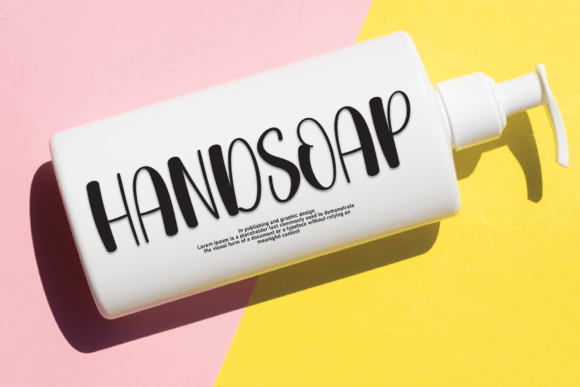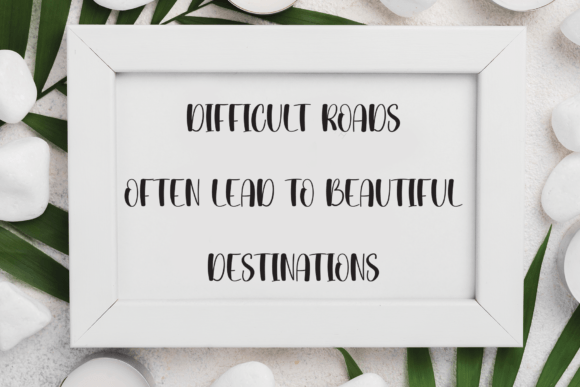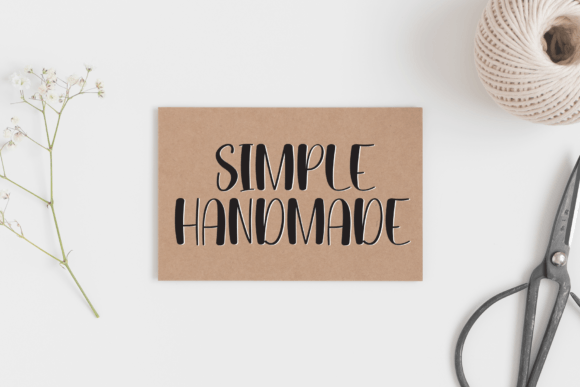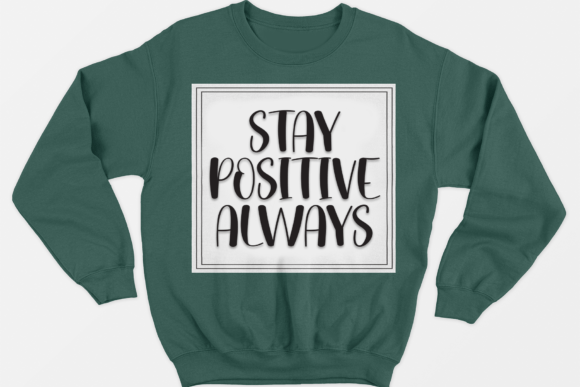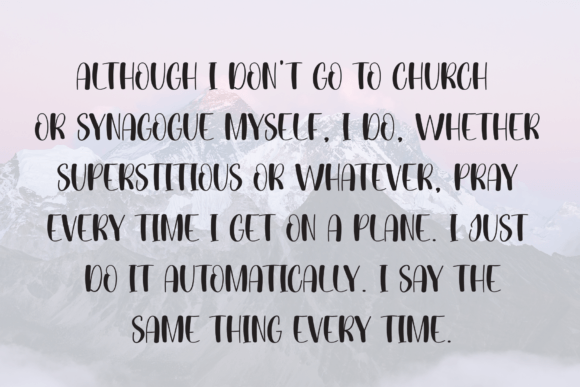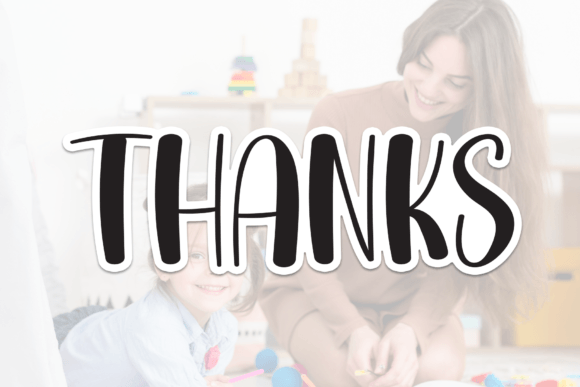
The Sweet and Friendly Babysitter Font: A Designer’s Delight
I’ll never forget the time I was working on a wedding invitation project, and my client asked me to create a custom design that exuded warmth and playfulness. I spent hours scouring font libraries, but nothing seemed quite right. That’s when I stumbled upon the Babysitter font – a sweet and friendly handwritten font that instantly won me over. In this article, I’ll share my experience with this lovely font, its features, and how to make the most of it in your designs.
An Honest Review of Babysitter Font
The Babysitter font has quickly become one of my go-to fonts for projects that require a touch of whimsy and friendliness. Here’s what I love about it:
- ✨ Sweet and playful vibe: The Babysitter font has a delightful, handwritten feel that’s perfect for creating designs that are both fun and elegant.
- ✅ Ease of use: This font is incredibly easy to read and works well in a variety of design contexts, from wedding invitations to social media graphics.
- 💕 Emotional connection: The font’s friendly and approachable personality helps create an instant emotional connection with your audience.
Of course, no font is perfect, and here are a few quirks to keep in mind:
- 🤔 Limited formal use: While the Babysitter font is amazing for informal designs, it may not be the best choice for more formal projects that require a serif or traditional sans-serif font.
- ⚠️ Glyph limitations: As with any font, there may be limitations to the available glyphs, so be sure to review the character set before committing to a project.
The Designer Inspiration Behind Babysitter Font
While I couldn’t find any information on the exact design story behind the Babysitter font, it’s clear that the designer aimed to create a font that’s both sweet and friendly. Perhaps the designer was inspired by the joy of childhood, the playfulness of handwritten letters, or the elegance of classic typography. Whatever the inspiration, the Babysitter font is a delightful addition to any design project.
| What type of projects is the Babysitter font best suited for? | The Babysitter font is perfect for informal designs, such as wedding invitations, cards, social media graphics, and more. |
| Is the Babysitter font available in different weights or styles? | Depending on the font package, the Babysitter font may be available in different weights or styles, such as italic or bold. |